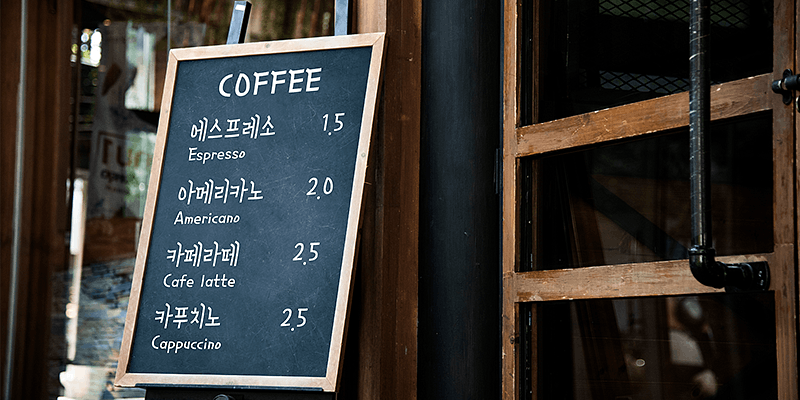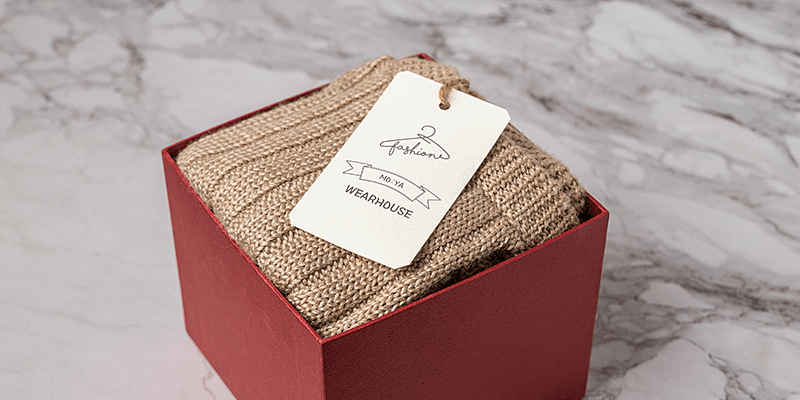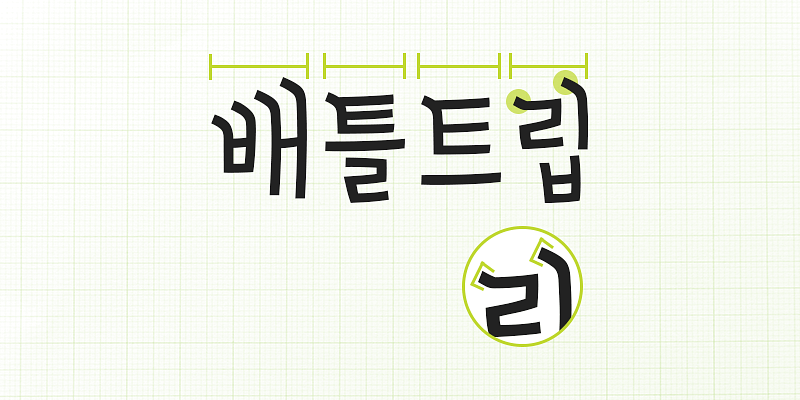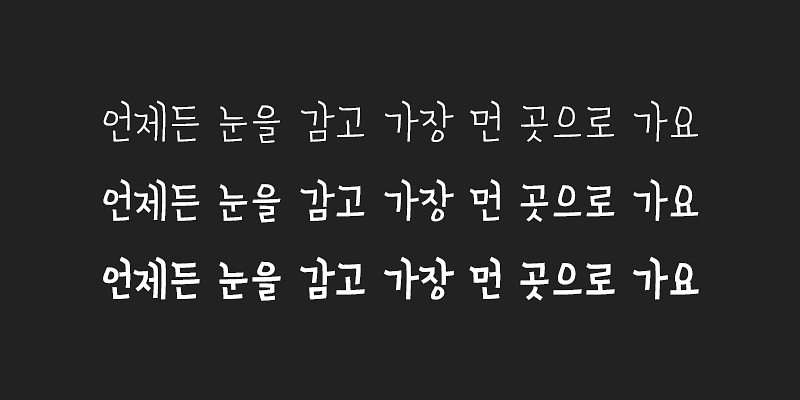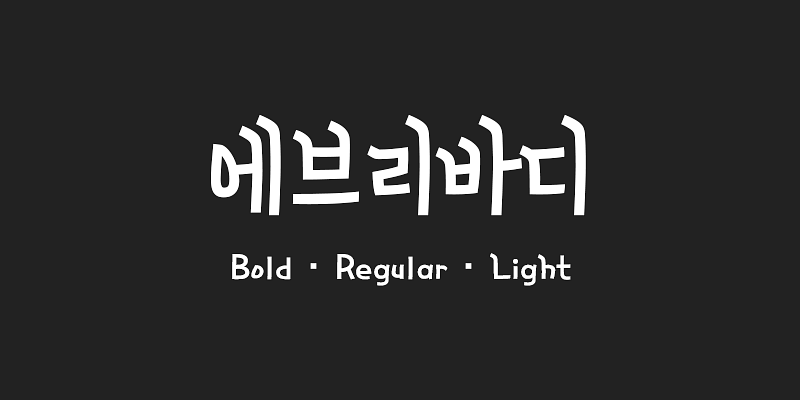
210 Everybody is a casual handwriting font. The repetitive serif element adds a unique flair, and emphasizes the feeling of letters firmly written down by hand. Its characters are designed in a variety of widths, giving it a dynamic look and feel.